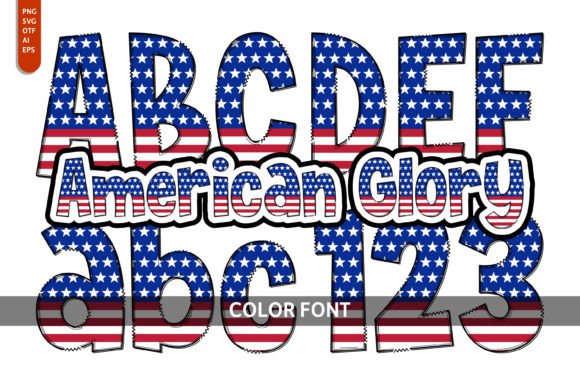
American Glory Font: A Vibrant Expression of Patriotism and Pride
The American Glory font is a lively and spirited color font that embodies the essence of the American flag. Its bold and vibrant red, white, and blue letters, adorned with stars and stripes, evoke a sense of patriotism and pride. This font is perfect for Independence Day celebrations, sports events, or any occasion that calls for a touch of American spirit. In this article, we’ll explore the American Glory font in detail, discussing its features, uses, and benefits.
What is American Glory Font?
American Glory is a unique and eye-catching color font that combines bold typography with a vibrant color scheme inspired by the American flag. The font features red, white, and blue letters, interspersed with stars and stripes, creating a festive and energetic vibe. Its design is perfect for grabbing attention and conveying a sense of patriotism and pride.
Key Features of American Glory Font
- Bold and Vibrant Design: The American Glory font boasts a bold and vibrant design, making it perfect for headlines, titles, and promotional materials.
- Patriotic Color Scheme: The font’s color scheme is inspired by the American flag, featuring red, white, and blue hues that evoke a sense of patriotism and pride.
- Stars and Stripes: The font includes stars and stripes, adding a touch of American spirit to your designs.
- Color Font: American Glory is a color font, allowing you to use it in a variety of designs, from digital media to print materials.
Uses of American Glory Font
The American Glory font is versatile and can be used in various contexts, including:
Independence Day Celebrations
The American Glory font is perfect for Independence Day celebrations, adding a touch of patriotism and pride to your designs. Use it to create eye-catching posters, flyers, and social media posts that commemorate this significant American holiday.
Sports Events
The font’s bold and vibrant design makes it an excellent choice for sports events, particularly those involving American teams. Use it to create energetic and engaging promotional materials, such as posters, flyers, and social media posts.
American-Themed Designs
The American Glory font is ideal for any design that requires a touch of American spirit. Use it to create patriotic-themed designs, such as:
- American flag-inspired artwork
- Patriotic-themed posters and flyers
- American-themed social media posts and graphics
- Memorial Day and Veterans Day tributes
Benefits of Using American Glory Font
The American Glory font offers several benefits, including:
Instant Recognition
The font’s bold and vibrant design ensures instant recognition, grabbing the attention of your audience and conveying a sense of patriotism and pride.
Versatility
The American Glory font is versatile and can be used in various contexts, from digital media to print materials.
Emotional Connection
The font’s patriotic theme creates an emotional connection with your audience, particularly those with American roots or a strong sense of patriotism.
The American Glory font is a lively and spirited color font that embodies the essence of the American flag. Its bold and vibrant design, patriotic color scheme, and stars and stripes make it perfect for Independence Day celebrations, sports events, or any occasion that calls for a touch of American spirit. With its versatility, emotional connection, and instant recognition, the American Glory font is an excellent addition to your design arsenal.
- What is the American Glory font? The American Glory font is a lively and spirited color font that pays homage to the American flag.
- What is the font’s color scheme? The font’s color scheme is inspired by the American flag, featuring red, white, and blue hues.